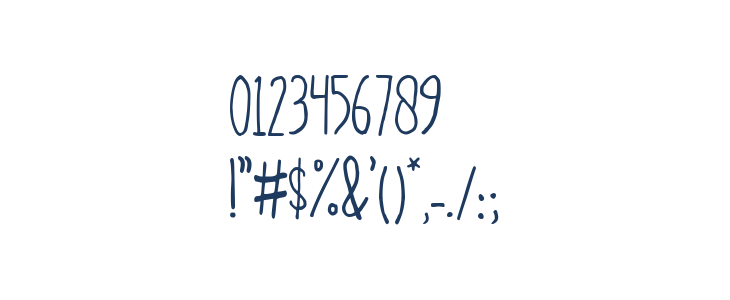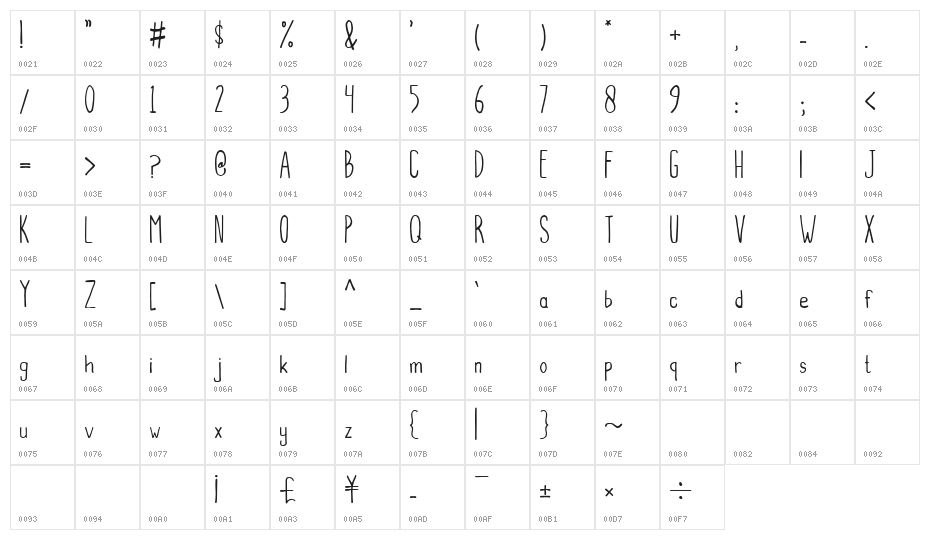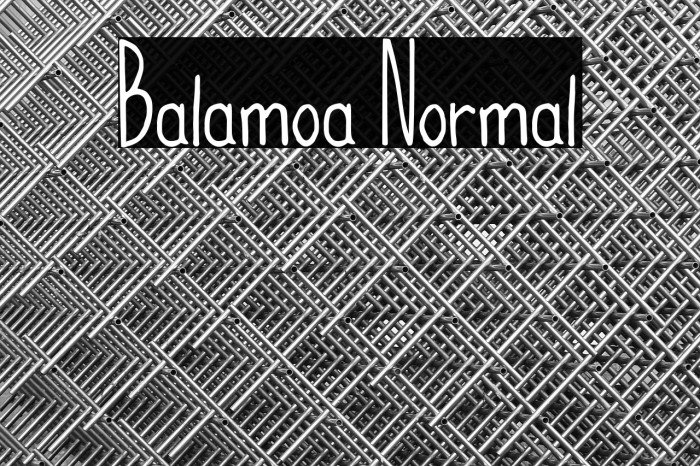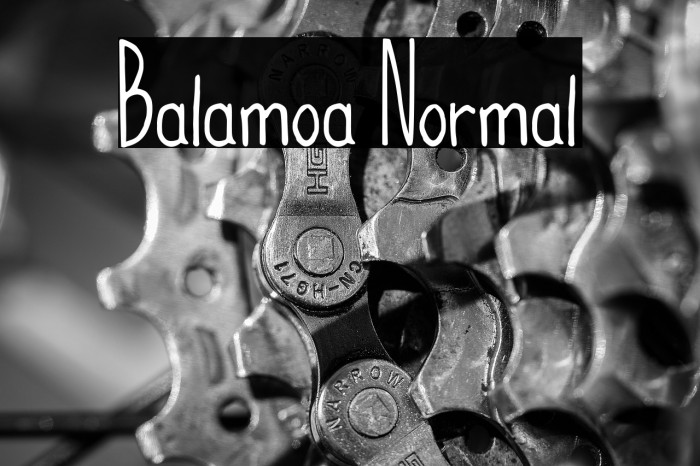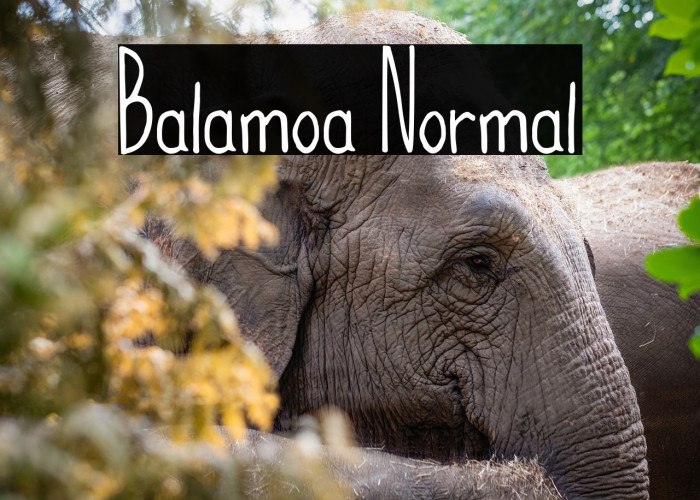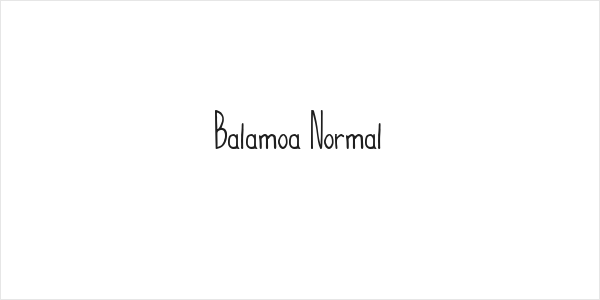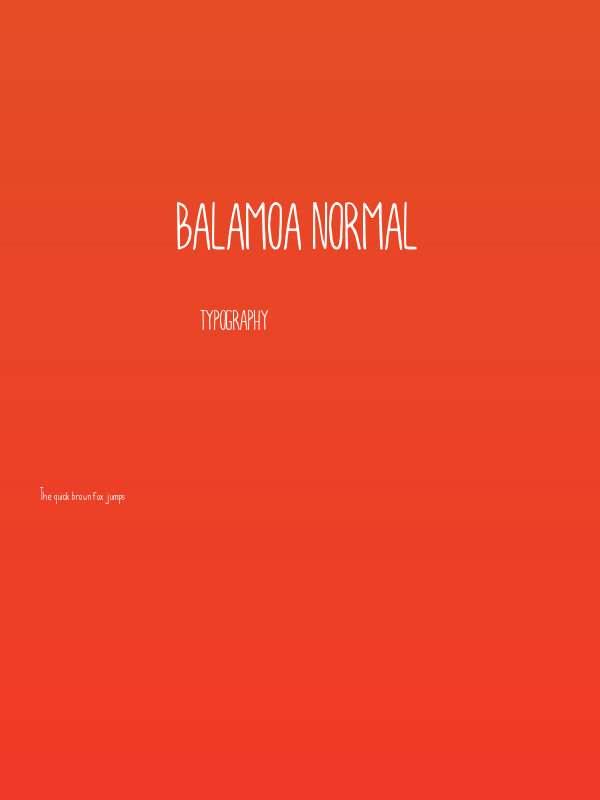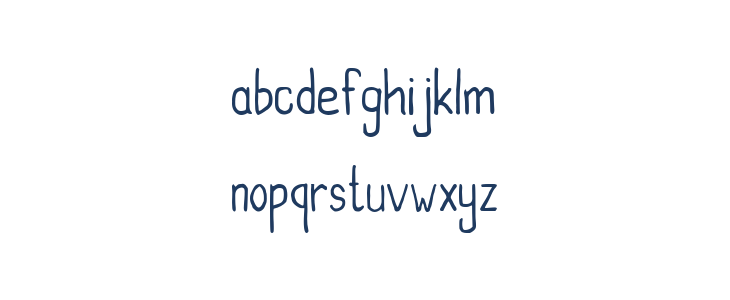
Balamoa Normal Font
Balamoa Normal Description
This font features a playful and casual handwritten style, characterized by its tall, narrow letters and slightly irregular strokes. The uppercase and lowercase letters maintain a consistent height, giving it a cohesive appearance. The numerals are distinct and easy to read, while the special characters add a touch of whimsy. The overall design is clean and modern, making it suitable for a variety of creative projects. Its unique charm lies in its simplicity and the subtle variations in line thickness, which add a personal touch without compromising legibility.
| Use Case | Headlines, Logos, Social media graphics |
| Proposed Projects | Ideal for greeting cards, children's books, casual branding, and social media graphics. |